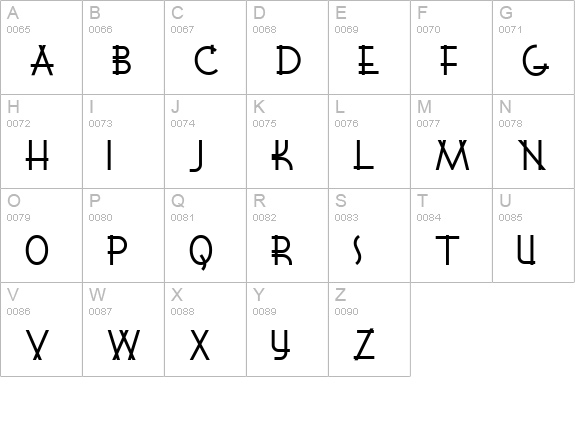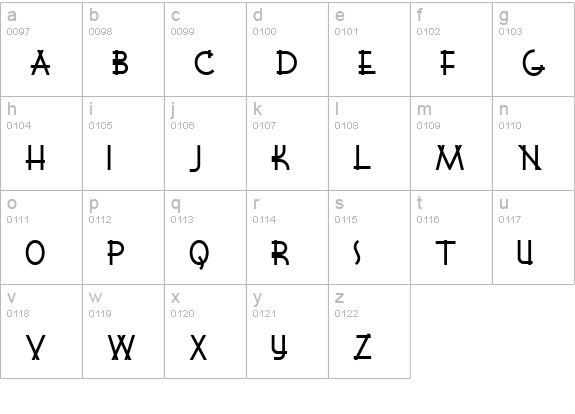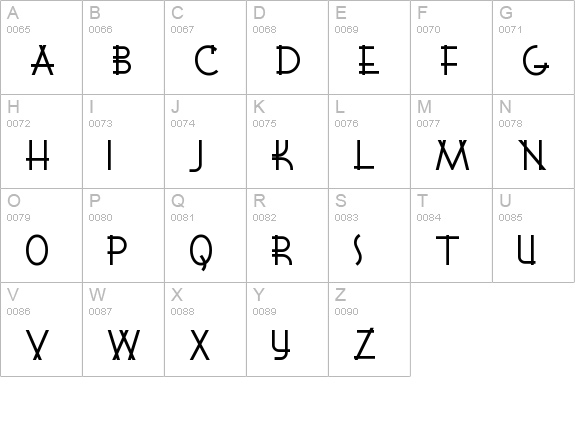
WigwamNF Medium is a balanced, medium-weight variant in the WigwamNF typeface family \xE2\x80\x94 well suited to sub-headlines, navigation, and balanced editorial work.
WigwamNF Medium is a modern and versatile font that combines elegance with readability. With its balanced and clean letterforms, this font is perfect for various design projects, from branding and advertising to editorial and web designs. The medium weight of WigwamNF Medium strikes the perfect balance between boldness and delicacy, making it suitable for both headlines and body text. Its rounded edges and smooth curves give it a friendly and approachable feel, while maintaining a professional and polished appearance. One of the most appealing aspects of WigwamNF Medium is that it is freely available to download at FontsMarket.com. This means that designers and creatives can easily access and use this font without any restrictions or limitations. Whether you are a professional designer or a hobbyist, you can enjoy the benefits of this font without any cost. With its wide range of characters and language support, WigwamNF Medium can be used in various international projects. Its versatility and legibility make it an excellent choice for websites, packaging, logos, and any design that requires a touch of modern sophistication. So why wait? Take advantage of the opportunity to enhance your designs with the elegant and freely available WigwamNF Medium font. Visit FontsMarket.com today to download this font and unlock a world of creative possibilities.